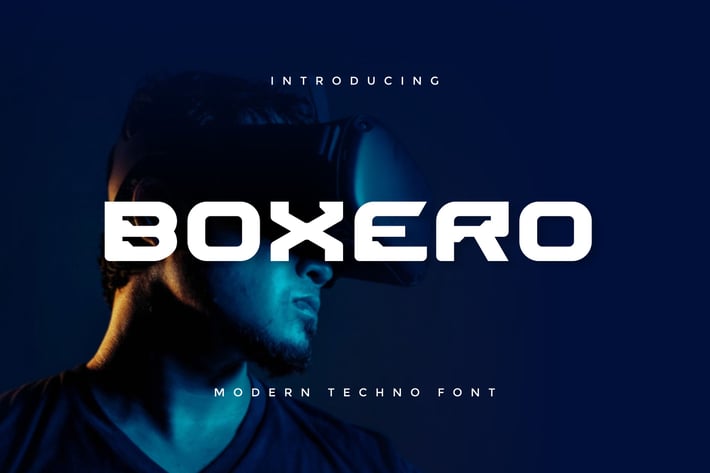
Boxero - Modern Futuristic Font
Introducing our new product Boxero - Modern Futuristic Font
Boxero is a bold, modern display font with playful flair, ideal for attention-grabbing headlines, logos, and diverse design projects. Versatile and readable in both digital and print, Boxero adds a dynamic touch to your message.